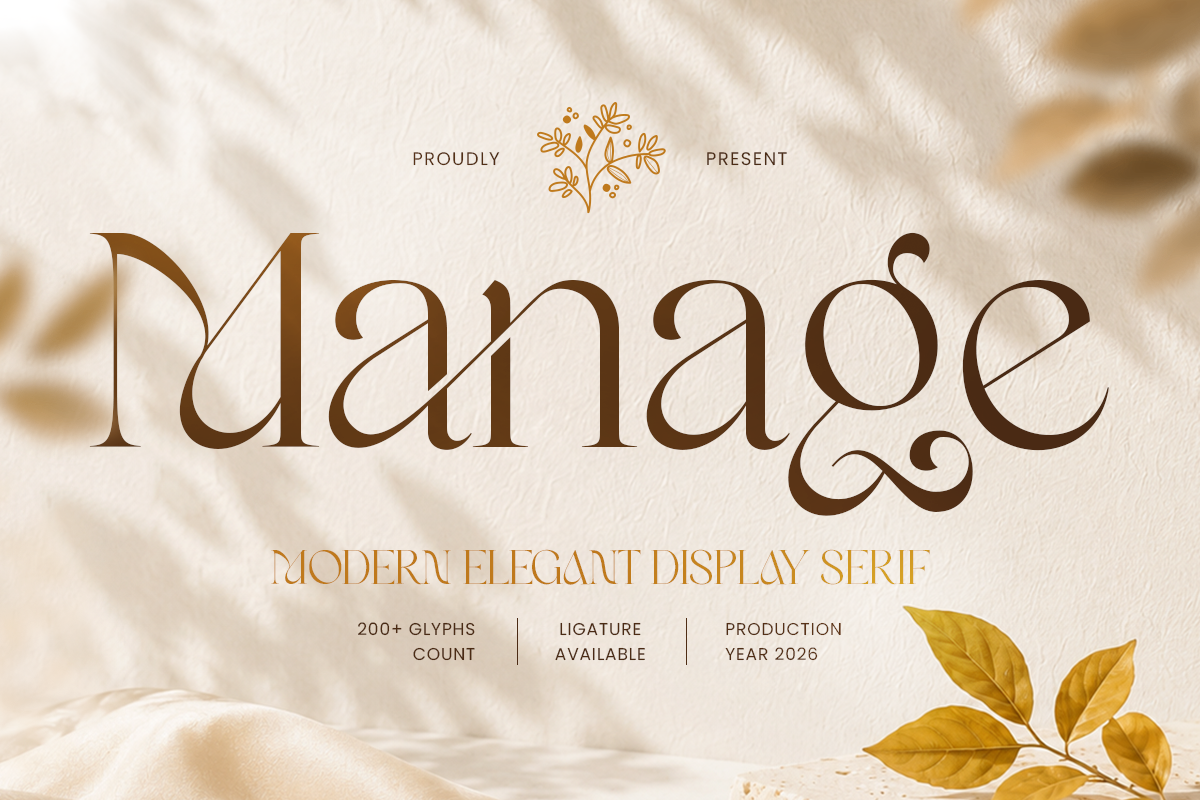
Manage
-Modern Elegant Display SerifManage – Modern Elegant Display Serif
Manage is a modern elegant display serif designed with refined proportions, sophisticated details, and a distinctive contemporary personality. Combining timeless serif beauty with a stylish modern approach, Manage creates an elevated visual presence for projects that demand elegance, confidence, and premium appeal.
Perfect for luxury branding, elegant logos, fashion labels, editorial layouts, magazine covers, beauty packaging, wedding stationery, and sophisticated advertising, Manage brings polished character to every composition. Its expressive display style also performs beautifully across posters, headlines, signage, social media graphics, and premium product presentations.
As a modern elegant display serif font, Manage is especially suited for fashion, cosmetics, jewelry, lifestyle, hospitality, beauty, and upscale branding. Its versatile character helps designers create memorable brand identities across packaging, print, web, and digital design while maintaining a refined and professional appearance.
Manage – Modern Elegant Display Serif Features
Modern serif letterforms with an elegant display character
Refined details for sophisticated and premium visual identities
Ideal for luxury logos, branding, fashion, and editorial design
Perfect for beauty, cosmetics, wedding, and lifestyle projects
OpenType features for creative typographic flexibility
Great for packaging, posters, headlines, and social media
Versatile for professional digital and print applications